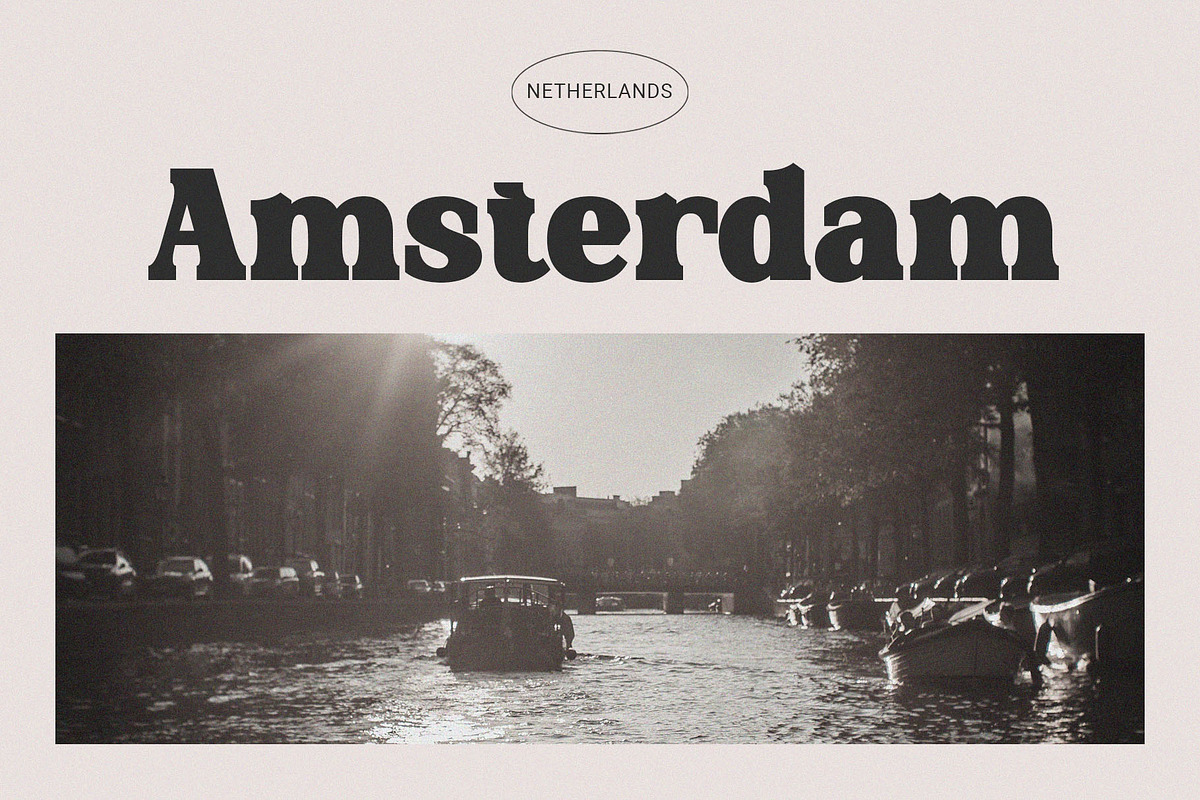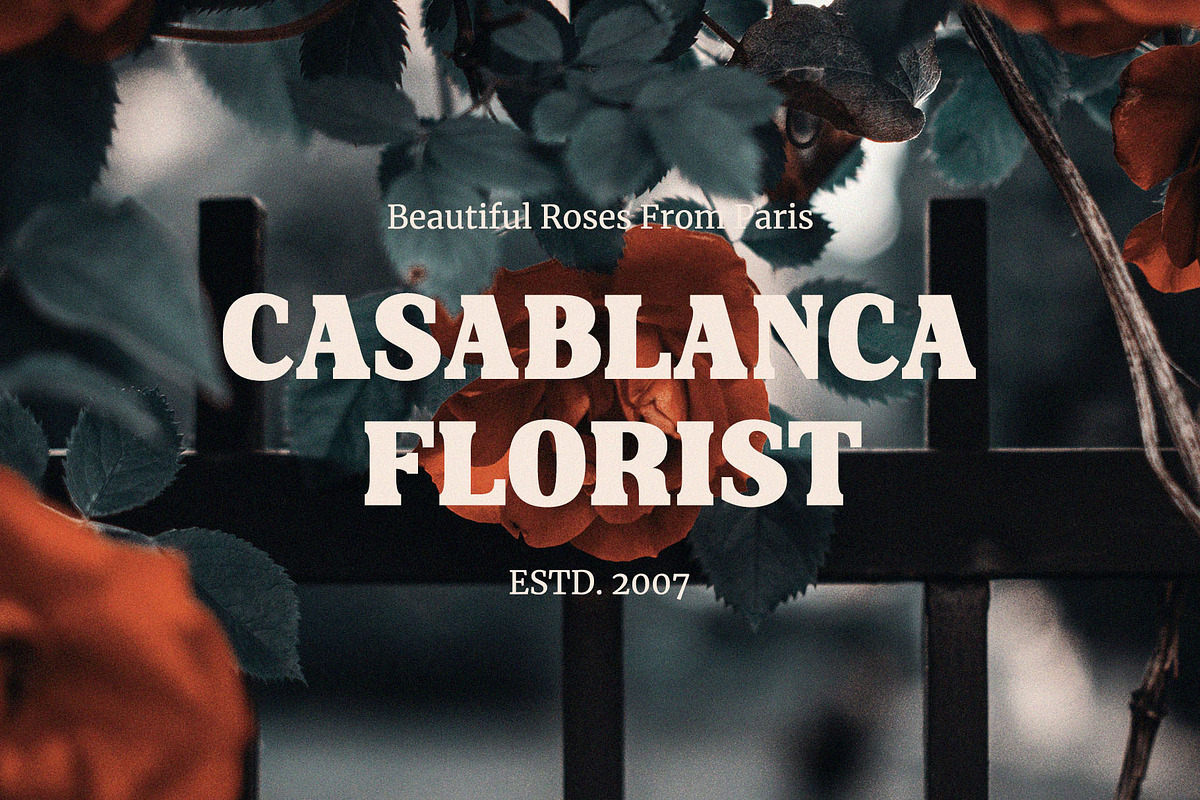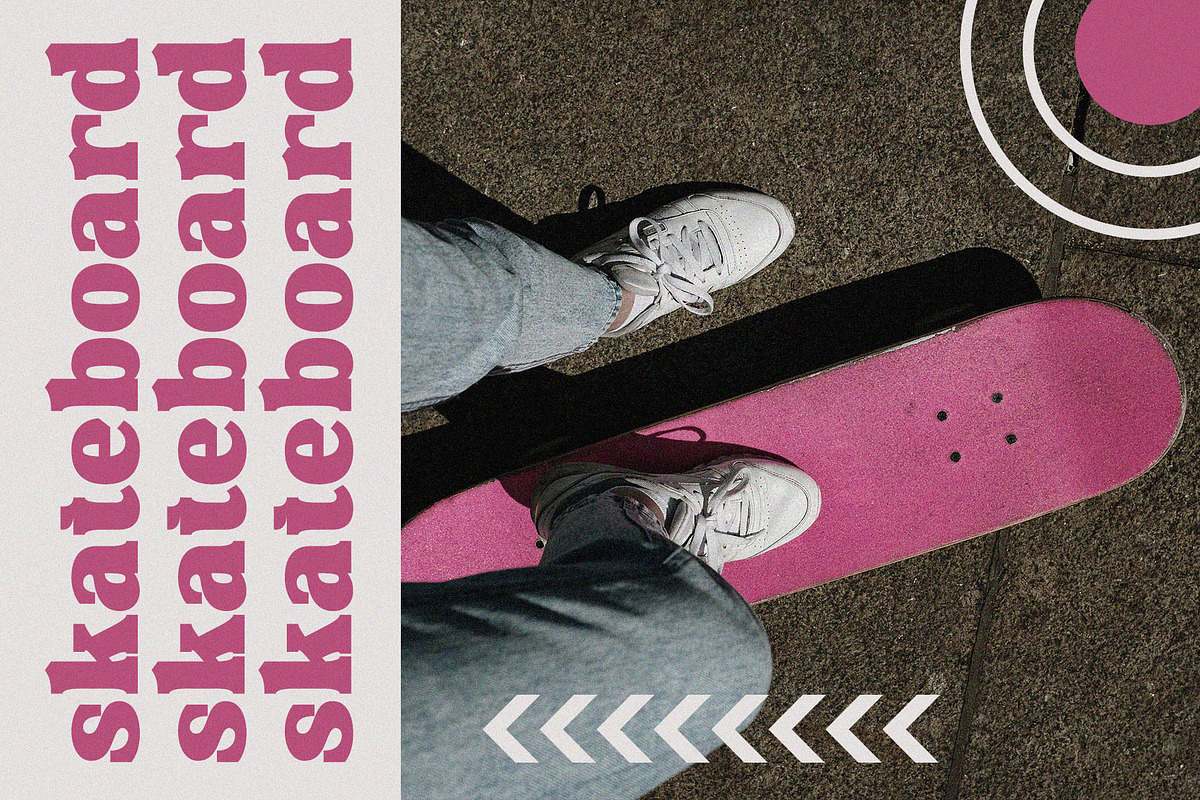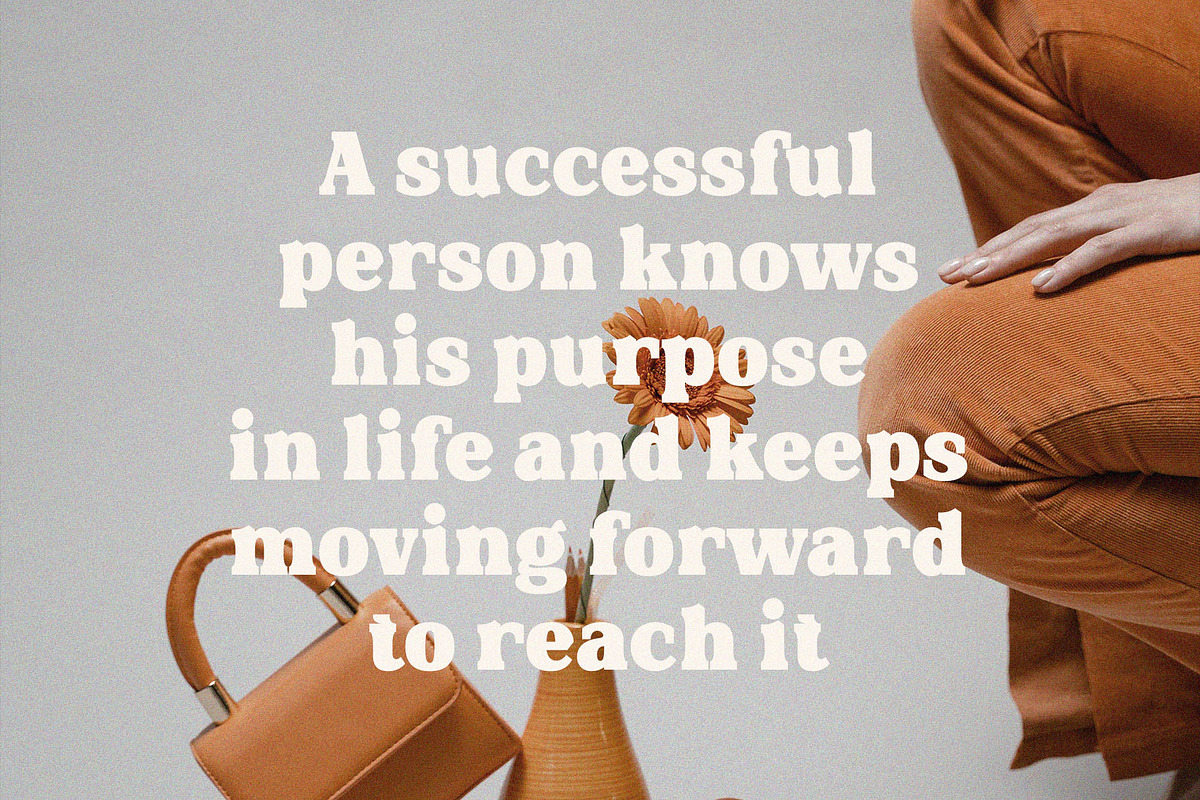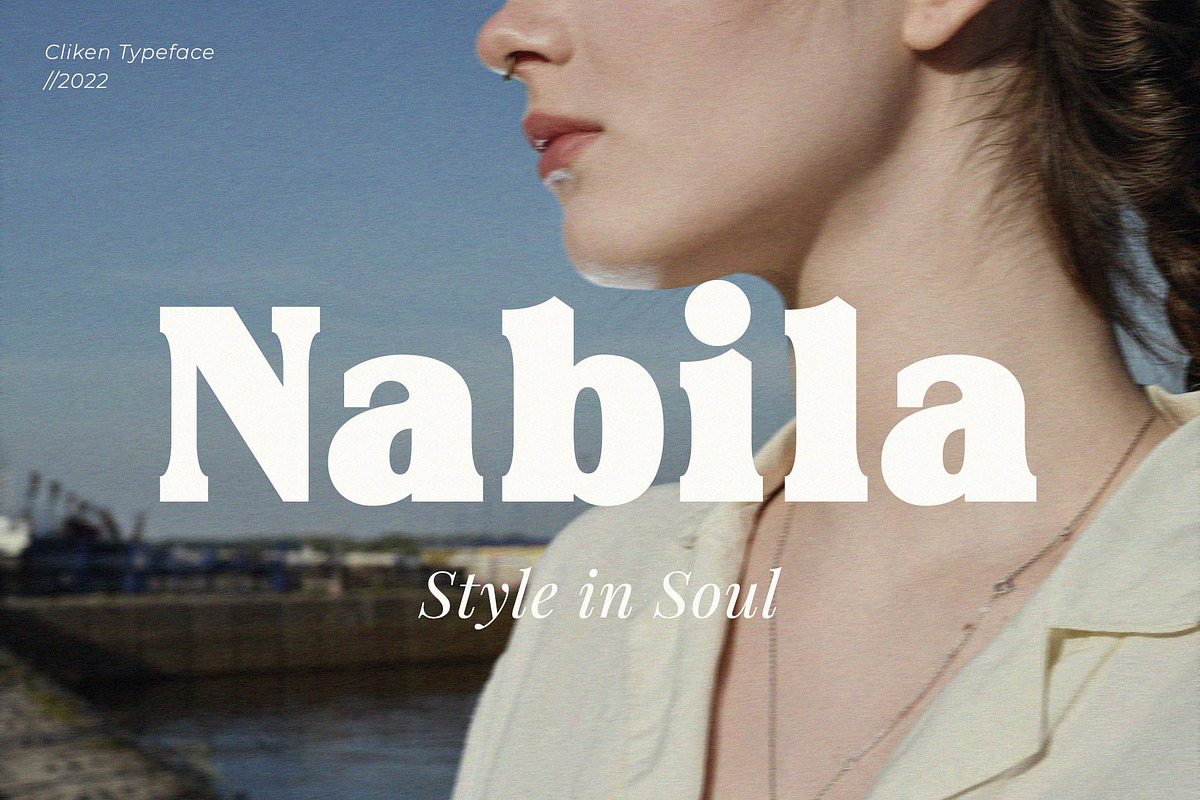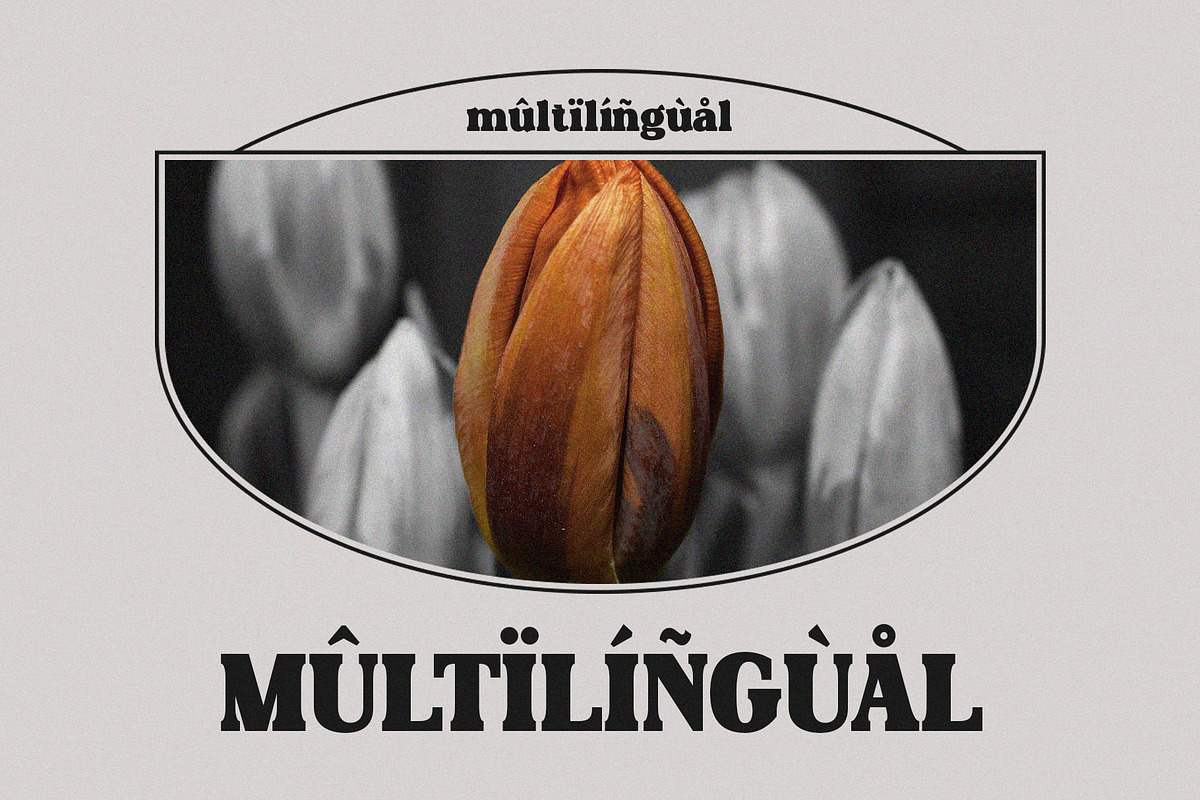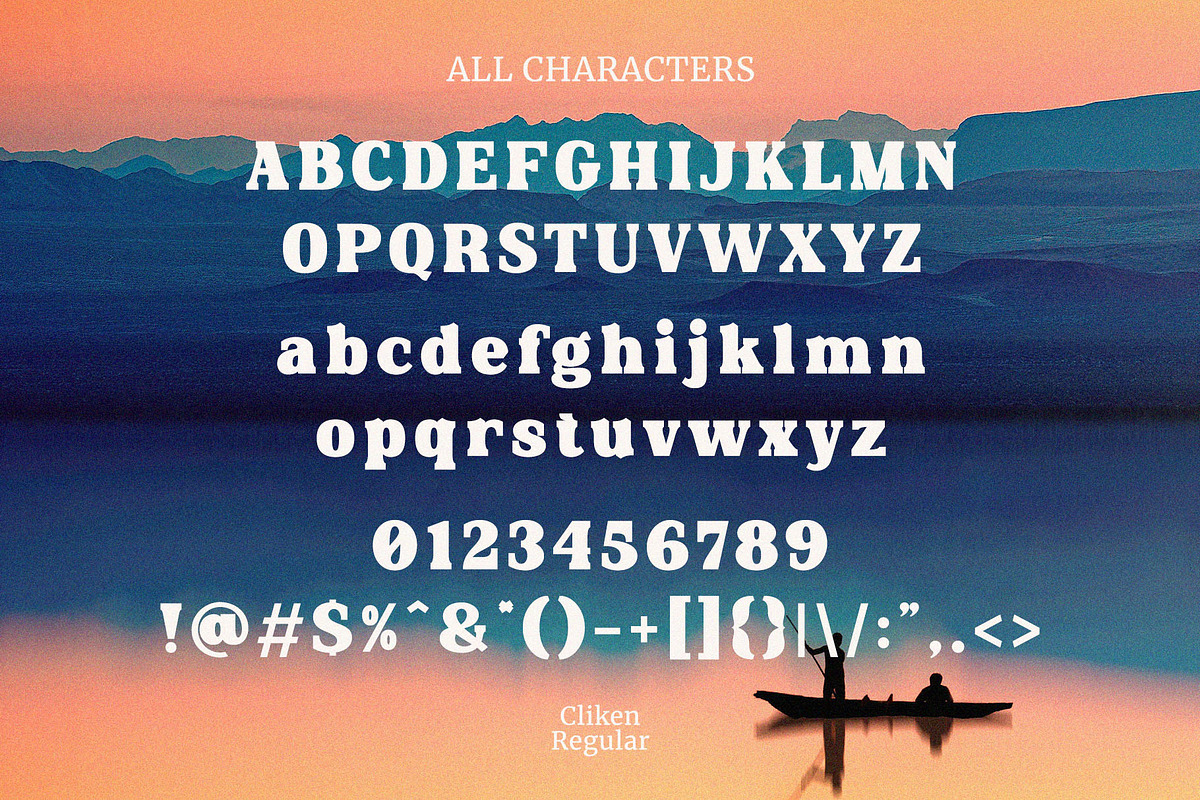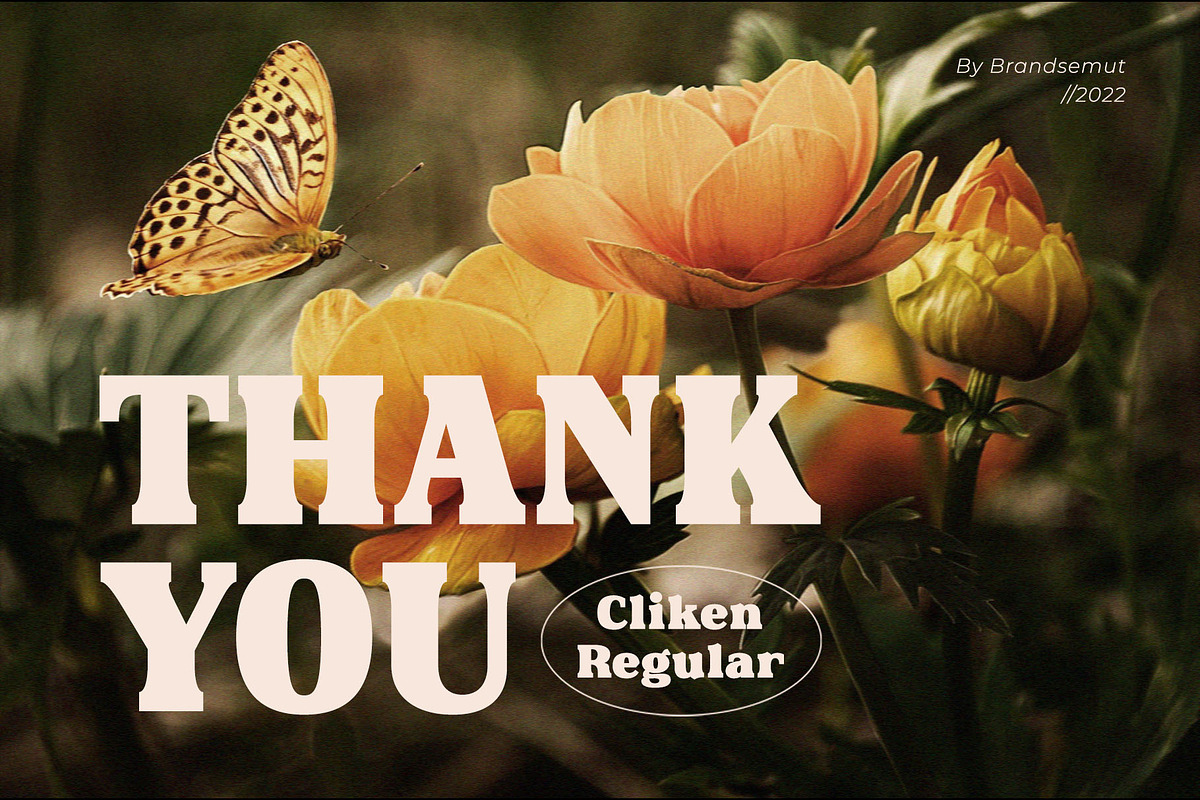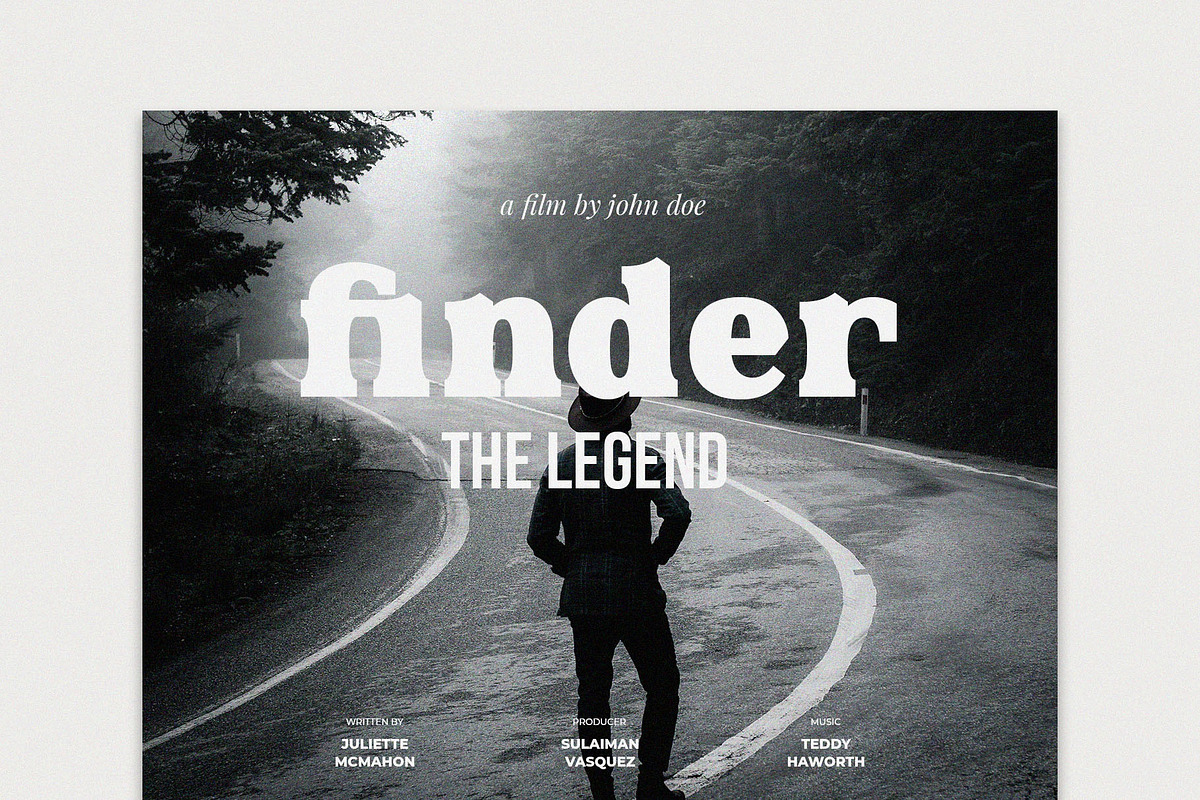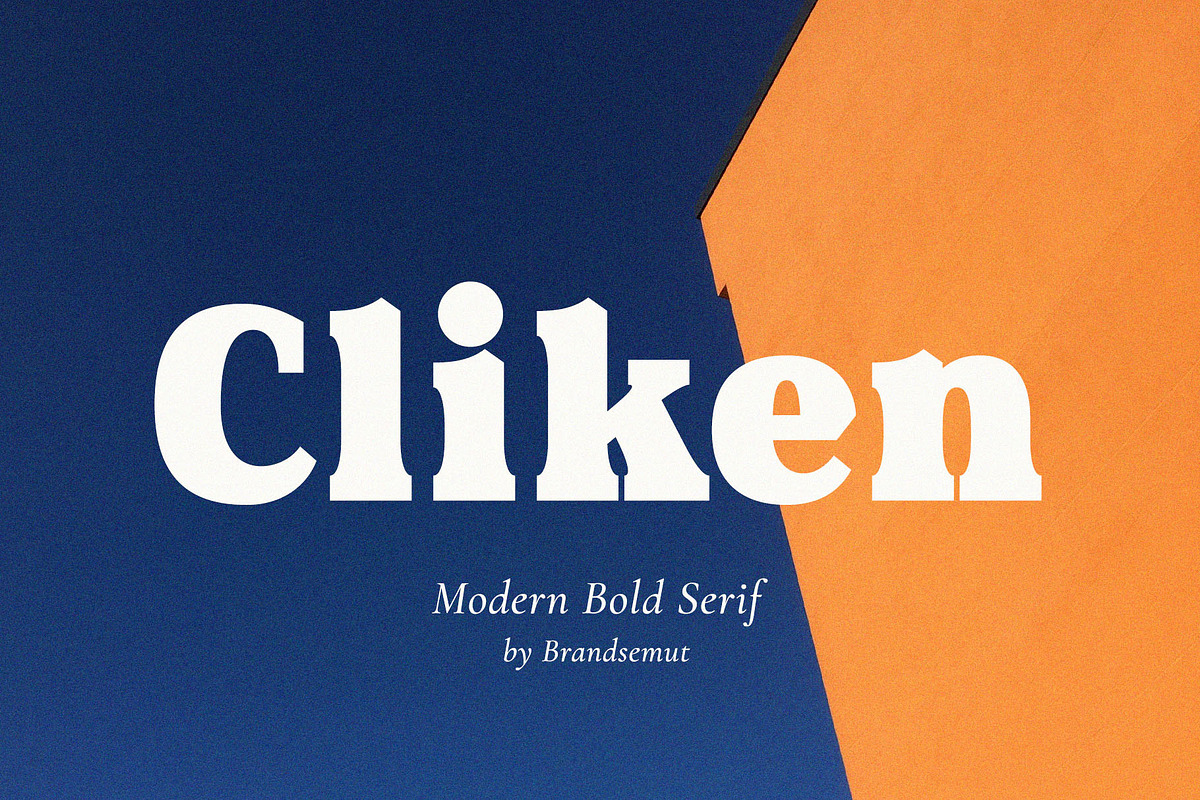
Cliken – Modern Bold Serif
Introducing Cliken Modern Bold Serif. Cliken is a modern and bold typeface, best used as a display for headings, logos, branding, magazines, product packaging and invitations. Cliken come with clean lines and smooth curves give any project an extra touch of class.